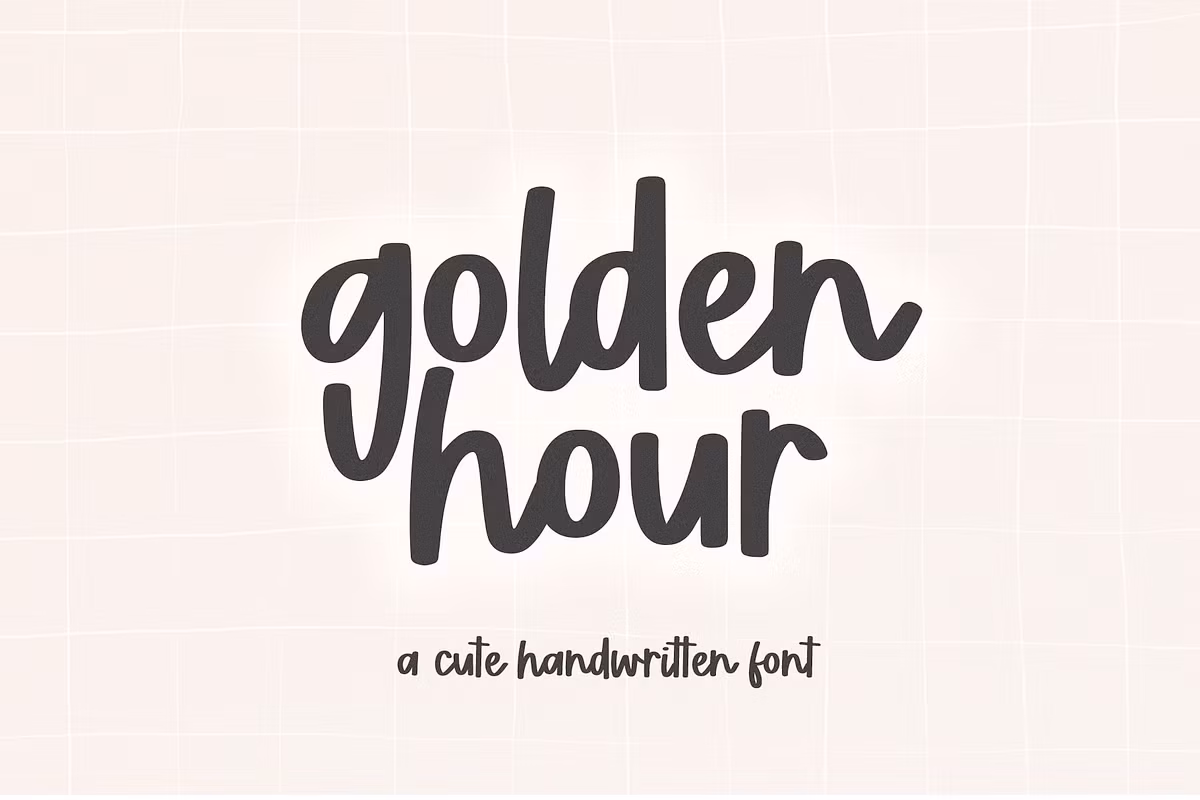
Golden Hour | Cute Script Font Free Download
Playful, charming, and full of warmth, Golden Hour | Cute Script Font Free Download is a delightful script typeface that captures the essence of handwritten charm with a cheerful, light-hearted vibe. Perfect for logos, branding, invitations, greeting cards, social media graphics, and more, this font adds a personal, whimsical touch to any design.
With its smooth, flowing lines and adorable letterforms, Golden Hour is ideal for projects that need to feel friendly, inviting, and full of personality. Whether you're designing for a fun brand, creating seasonal designs, or working on a casual invitation, this font brings a light, sunny feel to your typography.